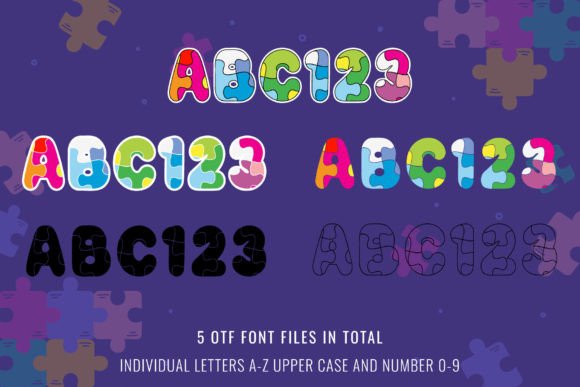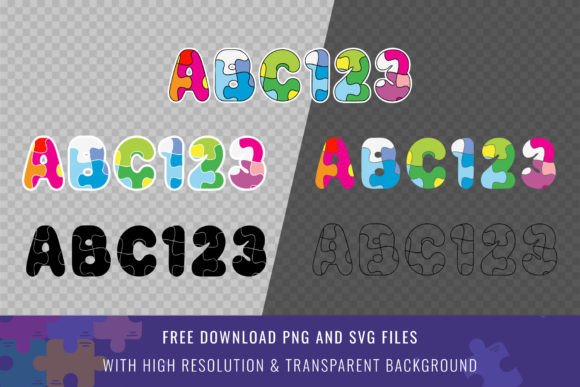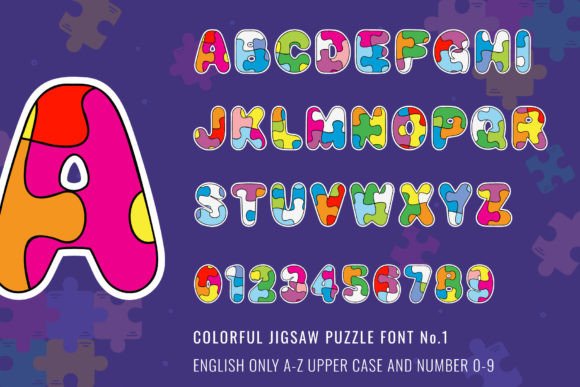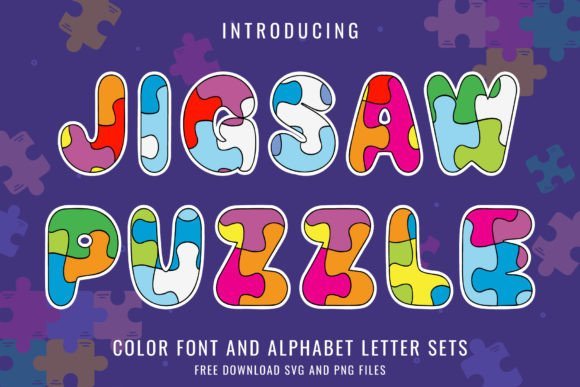
Introduction to Jigsaw Puzzle Font
Colorful Jigsaw Puzzle is a fun and playful color font.
It comes with black, outline, and color font separated It is the perfect font for kids’ projects and more.
Key Features of Jigsaw Puzzle Font